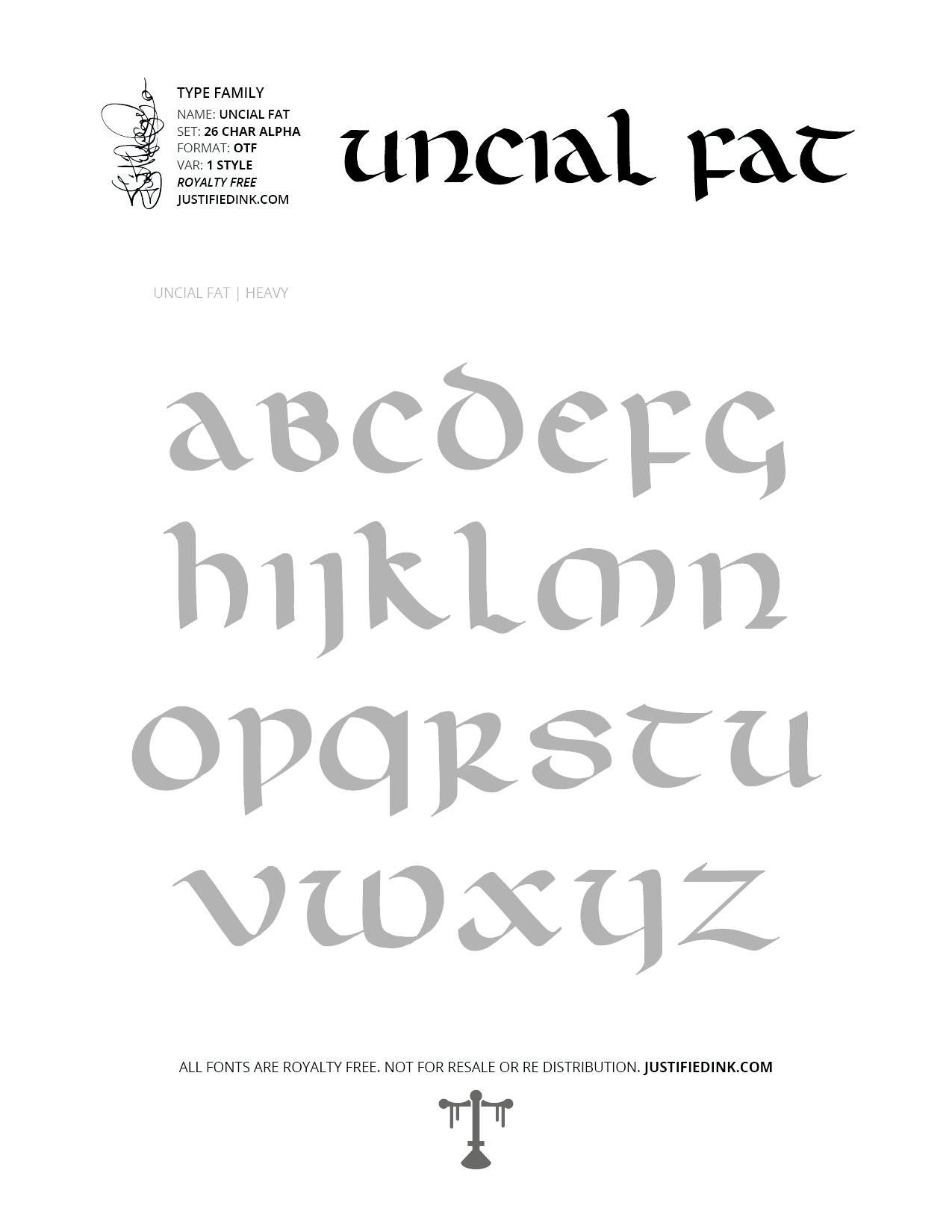
Uncial Fat (1 style) - Custom Font by Justified Ink
NAME: Uncial Fat
Uncial Fat is a thick handstyle based on the majuscule script of the same name, commonly used from the 4th to 8th centuries AD by Latin and Greek scribes.
Uncial, in calligraphy, ancient majuscular book hand characterized by simple, rounded strokes. It apparently originated in the 2nd century ad when the codex form of book developed along with the growing use of parchment and vellum as writing surfaces.